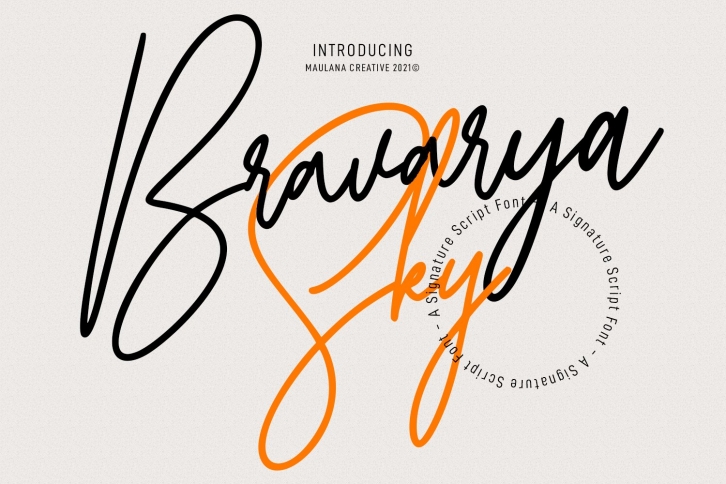
Bravarya Sky Signature is a gorgeous font that was realeased on September 2, 2021. The font can be used in many style contexts and design environments. Perfect for invitations, magazines, websites, logos, and more! It was designed by Maulana Creative and the file size is 12.53 MB. Thanks for checking out this font!